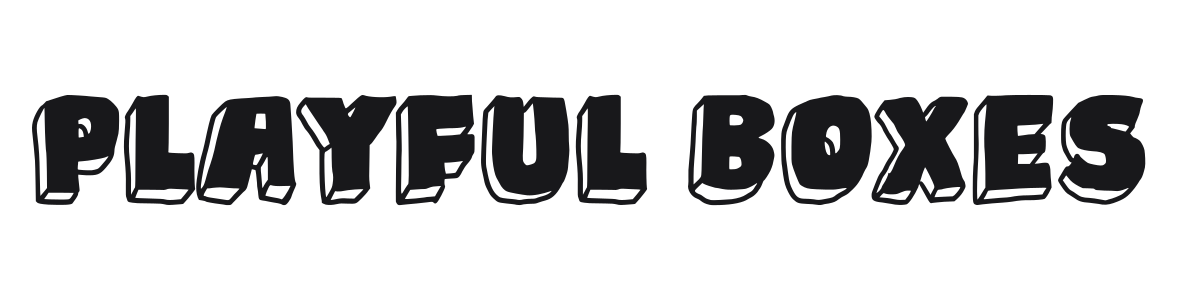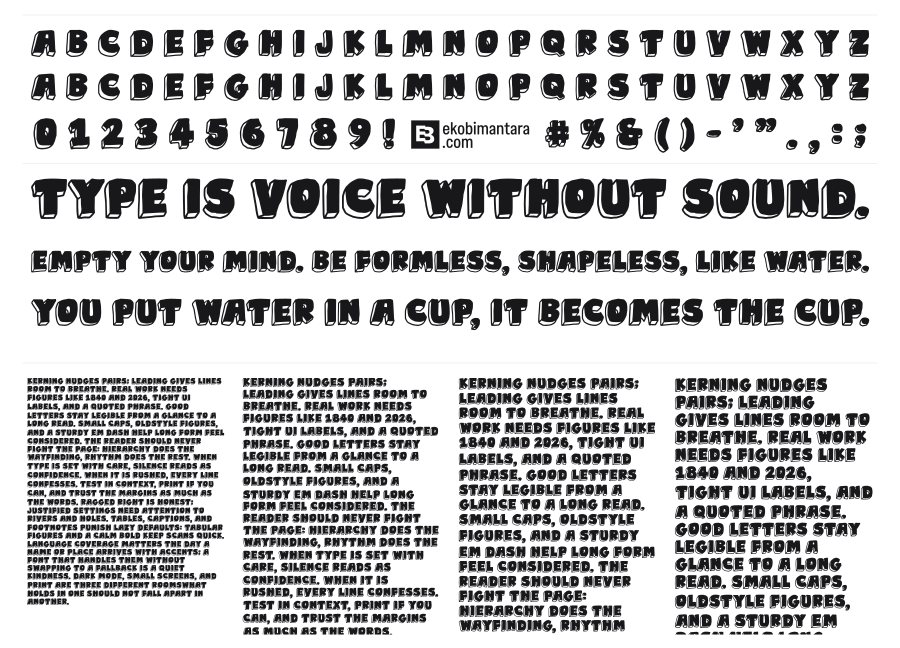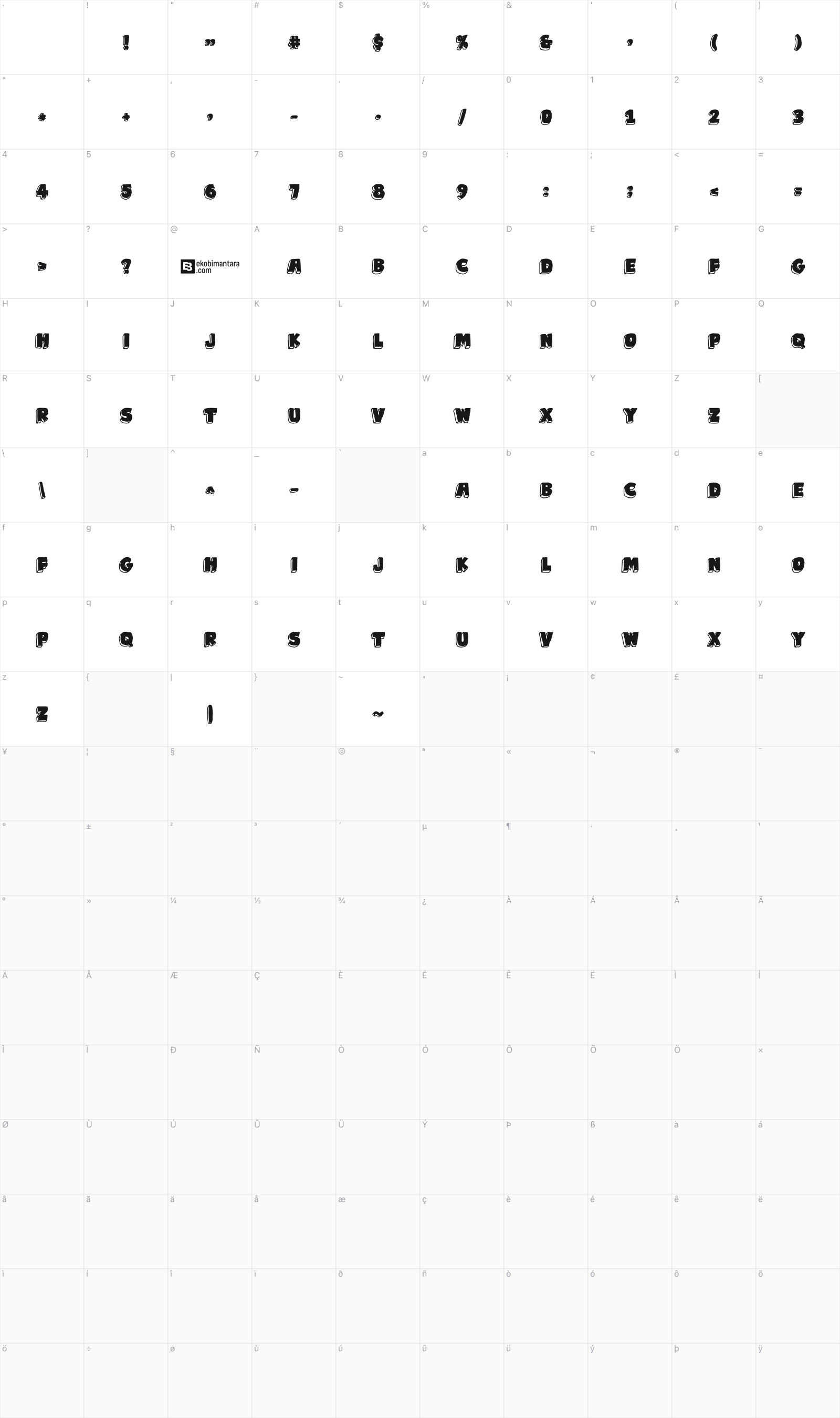
Playful Boxes
by Eko Bimantara
Playful Boxes is a heavy display font built on chunky, rounded letter bodies with a bold inline highlight and deep drop shadow that give every character a punchy, three-dimensional look. The slightly irregular, hand-crafted edges lean into comic-book energy without feeling sloppy. It works loudly at large sizes for titles, packaging, and anywhere that needs to feel fun and loud.